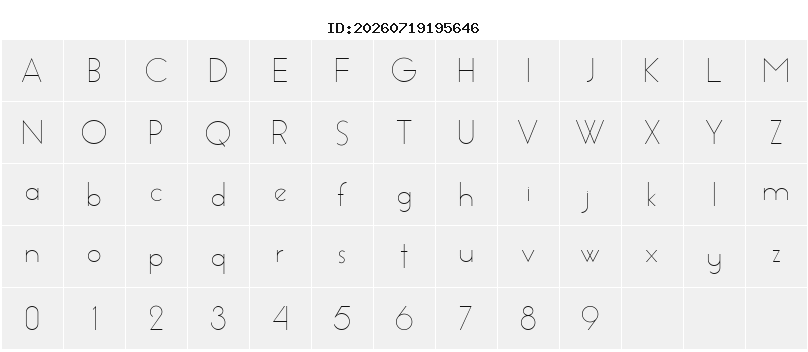
Essence Sans Preview
• Font Name: Essence Sans
• Font Style: Light
• Font ID: PauloR: Essence Sans Light: 2013
• Full Font Name: Essence Sans Light
• Version: Version 1.003 2013
• PostScript Name: Essence Sans Light
• Character Count: 206
• Designer: Paulo R
• Manufacturer: Paulo R
About Essence Sans.ttf
Essence Sans.ttf is a modern, elegant sans-serif font designed for ultimate readability and visual harmony. Perfect for branding, headlines, web design, and print materials.